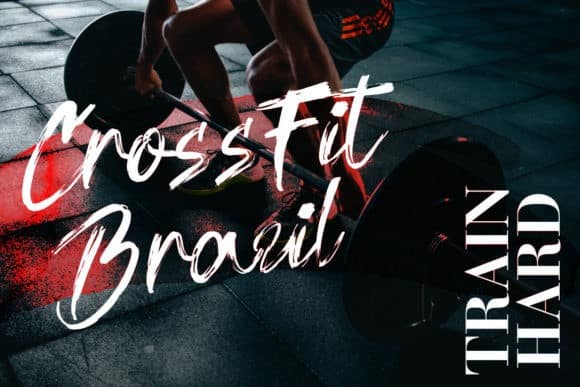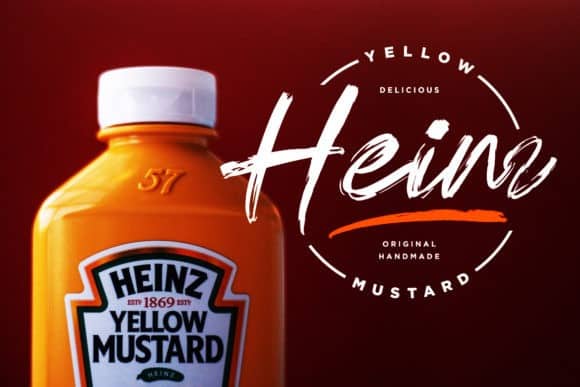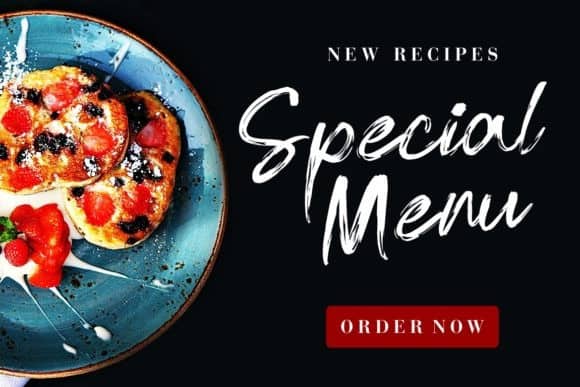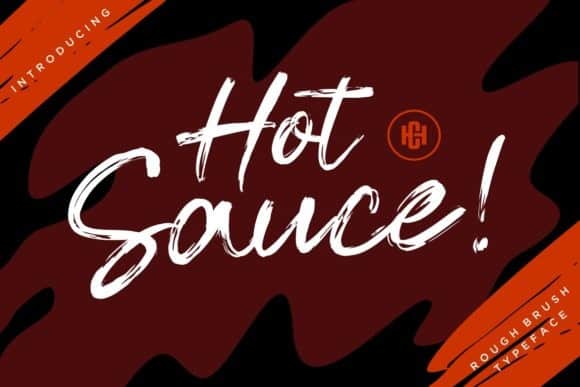
Hot Sauce Brush Font is The gorgeous brush font created using a brush pen, made as natural as possible so that it displays an attractive handwritten impression so that it can be applied to various design needs, ranging from logotypes, lettering quotes for social media needs, Instagram, Facebook, and others. Suitable used for wedding invitation designs, besides that the Hot Sauce is also very suitable to be applied to the media of t-shirts and other fashion needs.